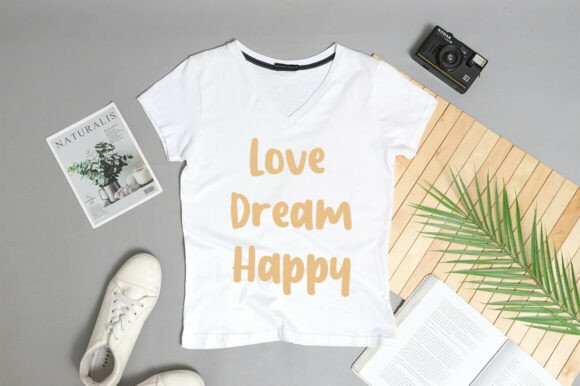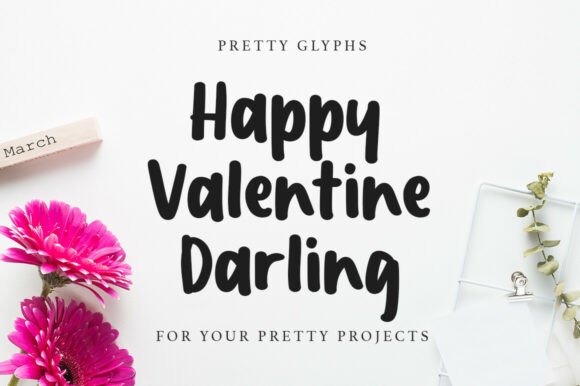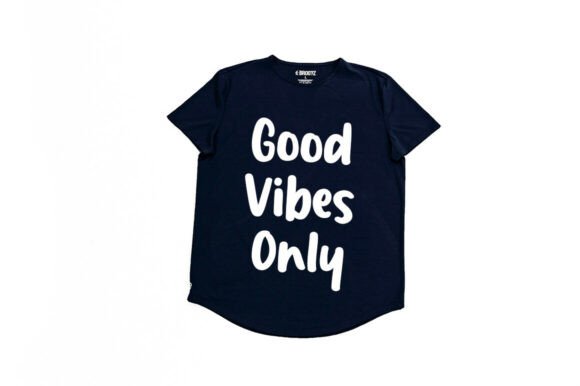
Introducing Cutie Patals Font: The Sweetest Display Typeface for Your Design Needs
Are you looking for a font that exudes freshness, sweetness, and playfulness? Look no further than the Cutie Patals Font! This delightful display typeface is perfect for designers and crafters seeking to add a touch of whimsy and charm to their projects. In this article, we’ll dive into the features and benefits of Cutie Patals Font, and explore its various uses in design.
The Charm of Cutie Patals Font
Cutie Patals Font is a soft and endearing display typeface that feels as fresh and sweet as a spring garden. Its chubby, friendly letterforms feature subtle organic curves that give it a “petal-like” softness. This unique characteristic makes it an ideal choice for designs that require a playful and approachable feel. The font’s rounded nature is incredibly kid-friendly, yet its clean execution allows it to work seamlessly for modern lifestyle brands as well.
Cutie Patals Font is a versatile typeface that can be used in a wide range of design applications, including:
- Logo & brand identity: Create a lasting impression with a custom logo that showcases your brand’s personality.
- Social media & quote designs: Add a touch of whimsy to your social media posts and quotes with this delightful font.
- Apparel, merch & packaging: Use Cutie Patals Font to create eye-catching designs for t-shirts, mugs, and product packaging.
- Posters, banners & stickers: Make a statement with bold and colorful designs that feature Cutie Patals Font.
- Invitations & greeting cards: Add a personal touch to your invitations and greeting cards with this charming font.
Design Tips and Inspiration
To get the most out of Cutie Patals Font, pair it with soft pastel colors and floral illustrations to create a cohesive and enchanting visual identity. This combination is sure to appeal to both children and the young at heart. Here are some design tips to keep in mind:
- Experiment with different font sizes and colors to add visual interest to your design.
- Use Cutie Patals Font in combination with other fonts to create a unique and eye-catching design.
- Don’t be afraid to add illustrations and graphics to enhance your design and make it more engaging.
Why Choose Cutie Patals Font?
Cutie Patals Font is an excellent choice for designers and crafters seeking a font that is both playful and versatile. Here are some reasons why:
- Unique and eye-catching: Cutie Patals Font is a one-of-a-kind typeface that is sure to grab attention.
- Kid-friendly: The font’s rounded nature makes it perfect for designs targeting children or families.
- Clean execution: Cutie Patals Font is clean and easy to read, making it suitable for a wide range of design applications.
In conclusion, Cutie Patals Font is a sweet and charming display typeface that is perfect for designers and crafters seeking to add a touch of whimsy and playfulness to their projects. With its unique features, versatility, and ease of use, this font is sure to become a favorite in your design arsenal. So why wait? Download Cutie Patals Font today and start creating enchanting designs that will delight both children and adults alike!